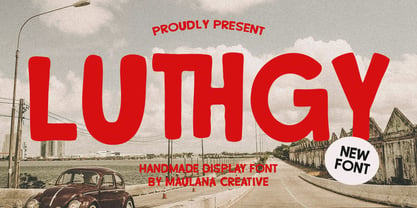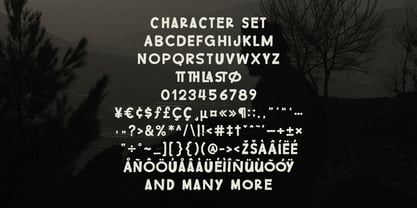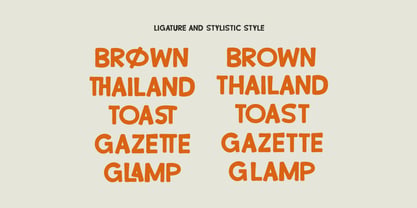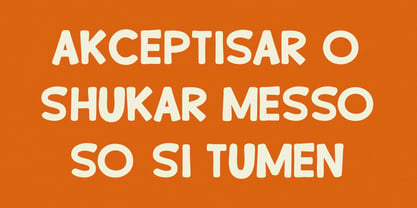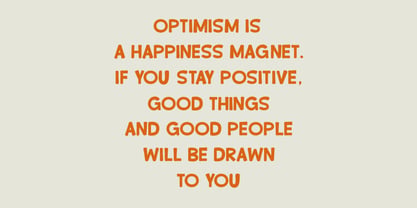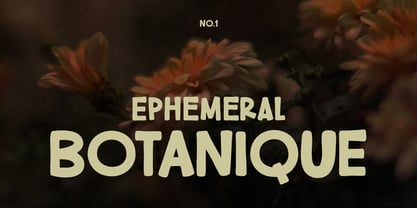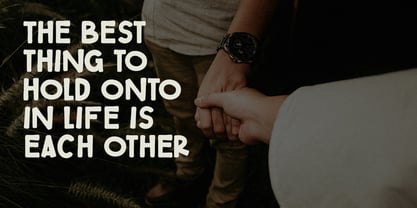
MC Luthgy
por Maulana Creative
La familia tipográfica MC Luthgy fue diseñada por Gilang Maulana y publicada por Maulana Creative. MC Luthgy contiene 1 estilos. Más información sobre esta familia
Luthgy is a handmade sans display font. Fun character with a bit of ligatures and alternate. To give you an extra creative work. Luthgy font support multilingual more than 100+ language. This font is good for logo design, Social media, Movie Titles, Books Titles, a short text even a long text letter and good for your secondary text font with sans or serif. Make a stunning work with Luthgy font.
Diseñadores: Gilang Maulana
Fundición: Maulana Creative